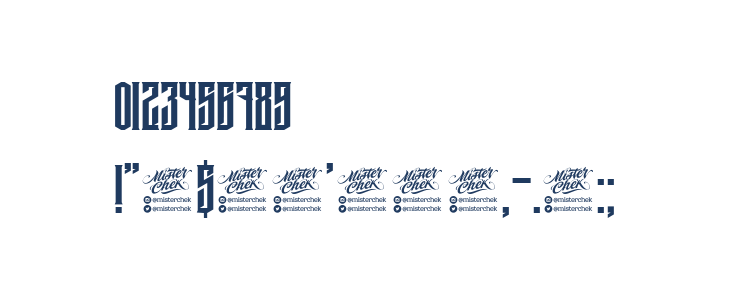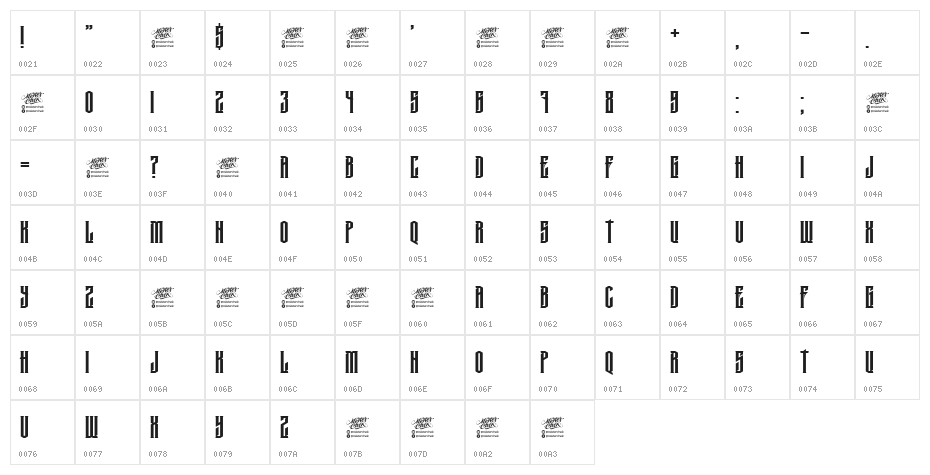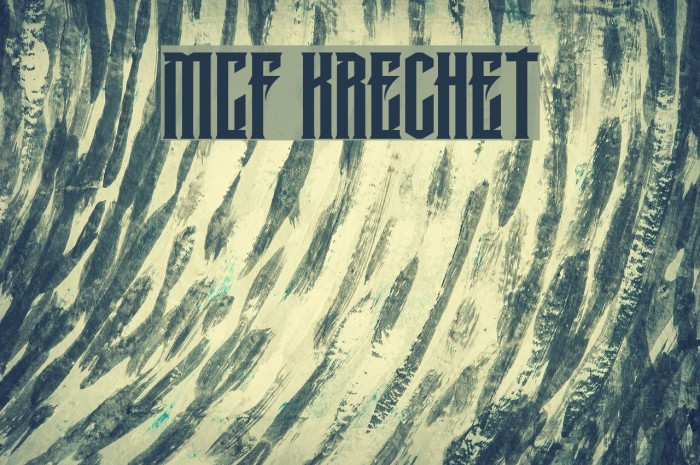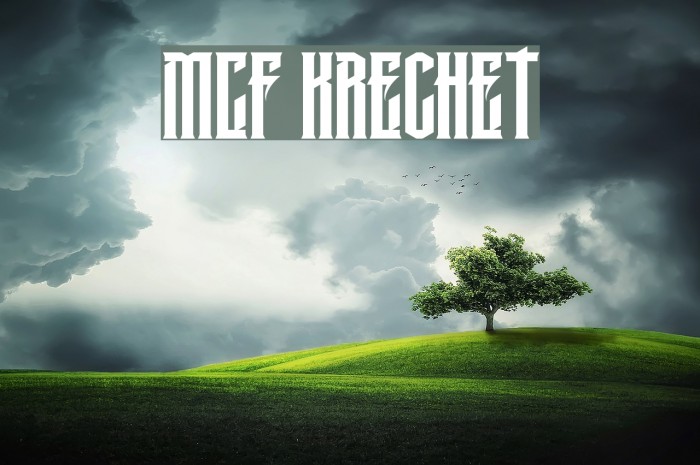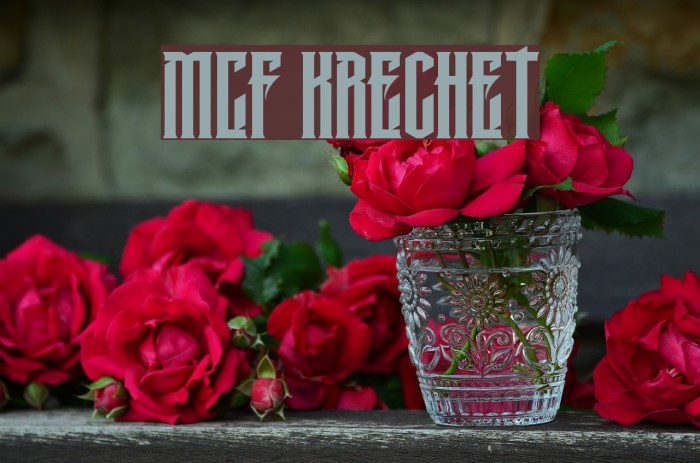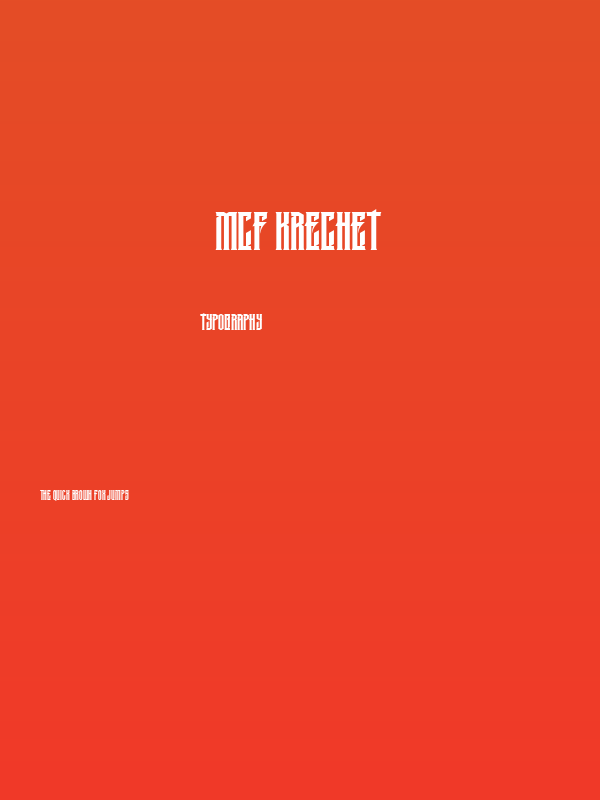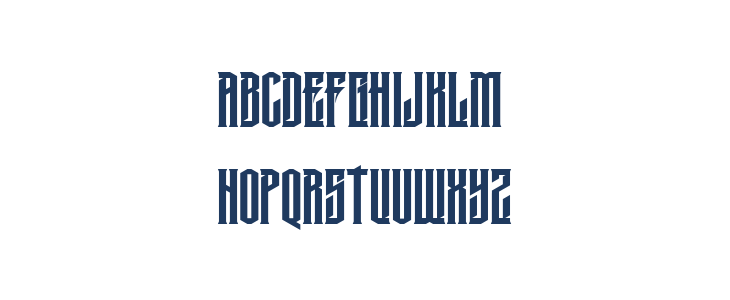
MCF krechet Font
MCF krechet Description
This font features a bold, angular design with a strong presence, characterized by its sharp edges and geometric shapes. The uppercase letters are tall and narrow, giving a sense of height and strength. The strokes are consistent in width, providing a uniform appearance across all characters. The numbers and special characters maintain the same bold style, ensuring cohesion throughout the font. This typeface is reminiscent of Gothic or Blackletter styles but with a modern twist, making it suitable for impactful and attention-grabbing designs.
| Proposed Projects | Ideal for branding, posters, album covers, and any project requiring a strong, impactful typeface. |